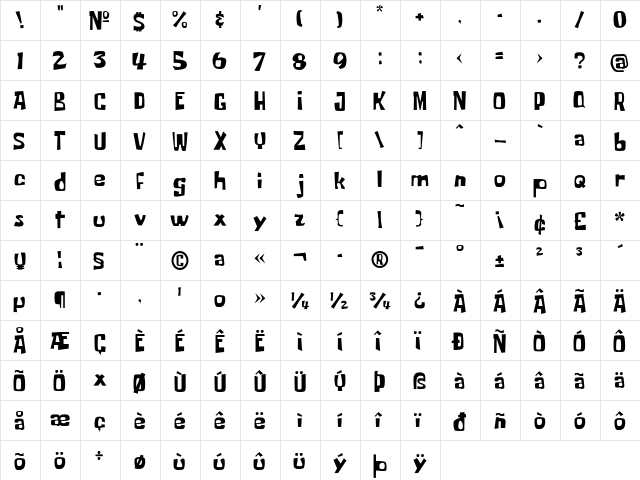
Some Time Later Regular
Design Context for Some Time Later Typeface
Some Time Later is a composed and adaptable typeface that performs quietly and consistently across a wide range of design contexts.